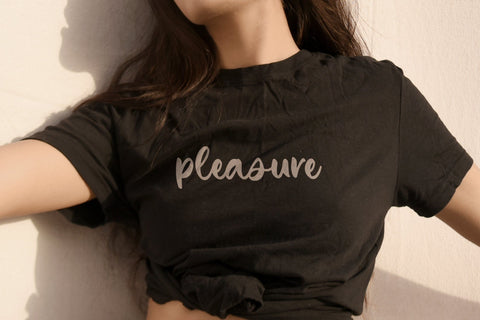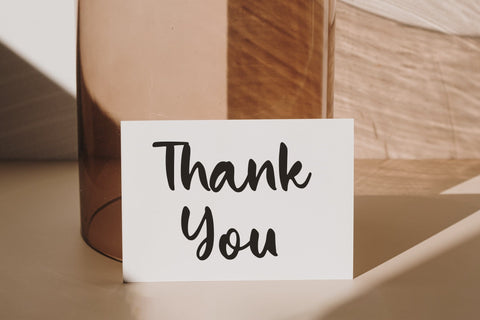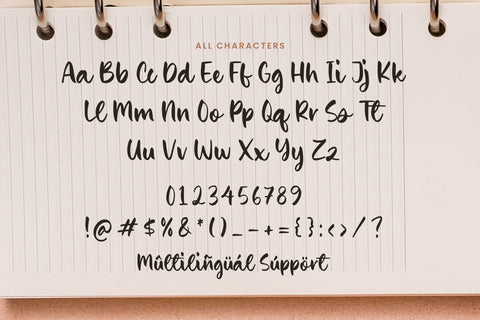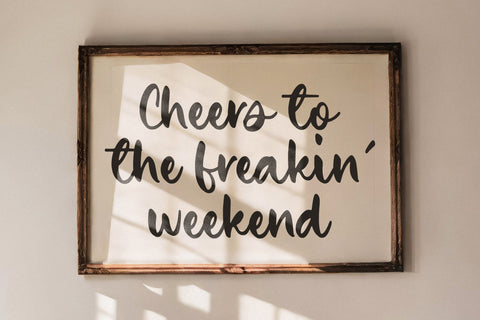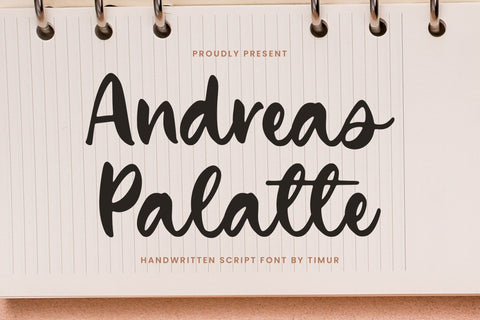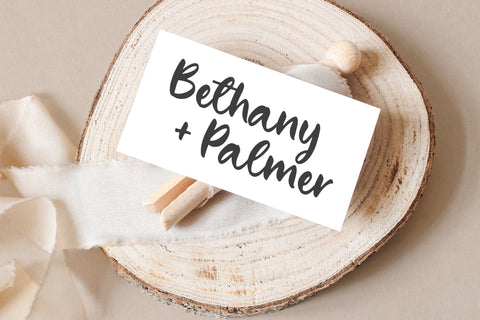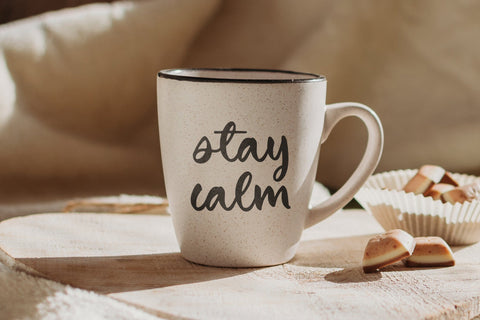
Andreas Palatte - Handwritten Script Font
Andreas Palatte is a Handwritten Script Font
This font is a elegant handwritten script font that exudes sophistication and charm. With its flowing, graceful curves and carefully crafted letterforms, it strikes a perfect balance between modern flair and timeless classicism. Ideal for creating refined logos, invitations, and branding, the font brings a touch of artistry to any project. Its fluid strokes and artistic swashes make each word feel uniquely expressive, offering a handwritten touch that’s both stylish and legible.
Andreas Palatte Font also supports multilingualism